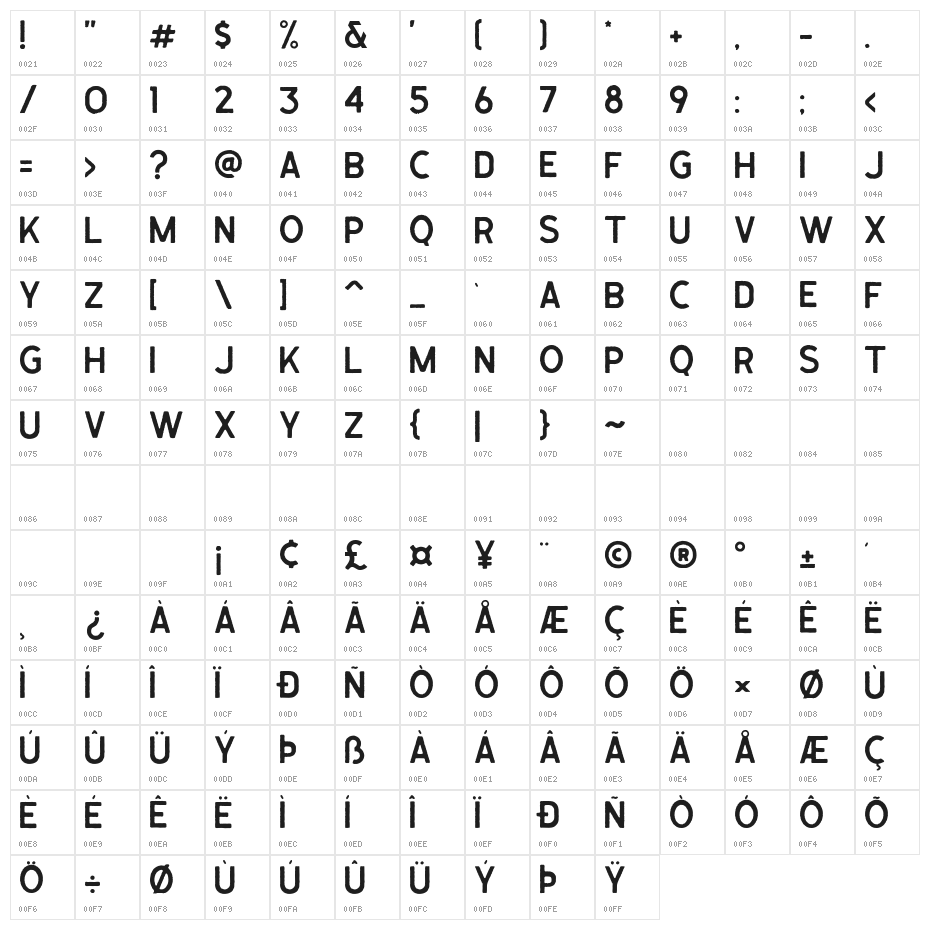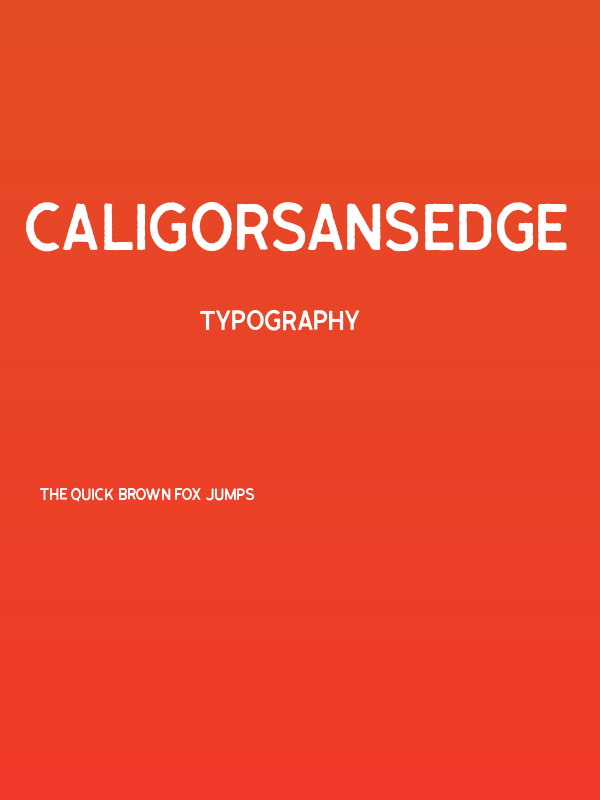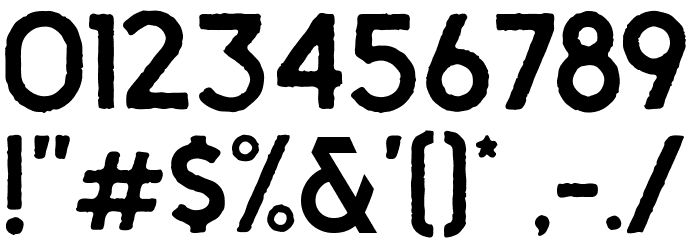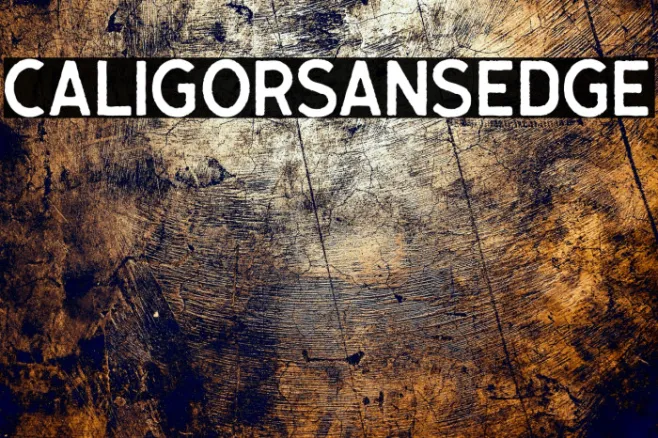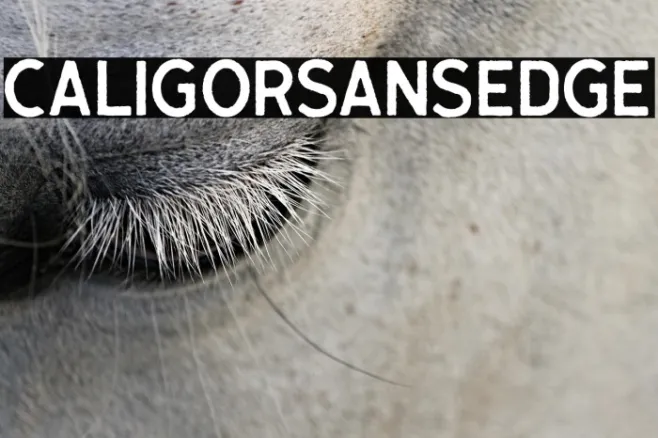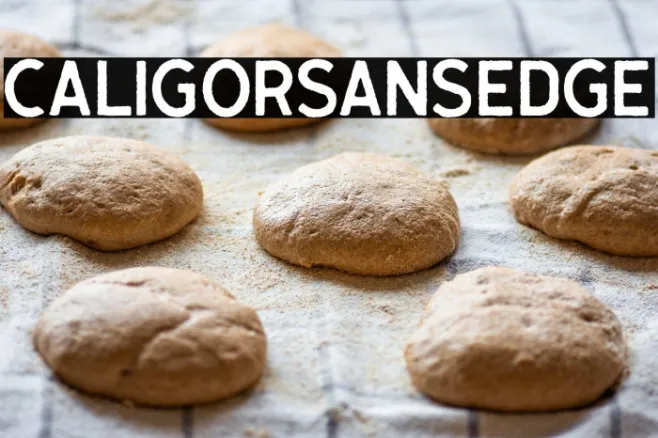
CaligorSansEdge Font
CaligorSansEdge Description
This font features a bold and rugged appearance with a distinctly hand-crafted feel. The characters are slightly irregular, giving them a unique, organic look that suggests a vintage or retro style. The uppercase letters are robust and impactful, while the numbers and special characters maintain the same boldness and handcrafted aesthetic. The overall texture of the font suggests a worn or distressed effect, adding to its charm and character. This font is well-suited for projects that require a strong, eye-catching display typeface with a touch of nostalgia.
| Proposed Projects | Ideal for branding, posters, packaging, and any design that requires a vintage or retro touch. |